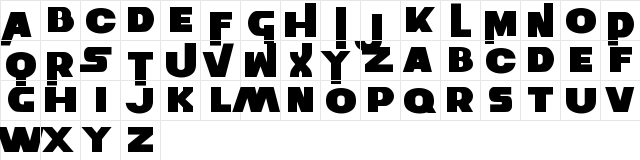
Planet of the Apes Regular
Design Context for Planet of the Apes Typeface
Planet of the Apes is a composed and adaptable typeface that performs quietly and consistently across a wide range of design contexts.
Pro Tip: Use Planet of the Apes in both headline and body roles to test its range before committing to a single application.